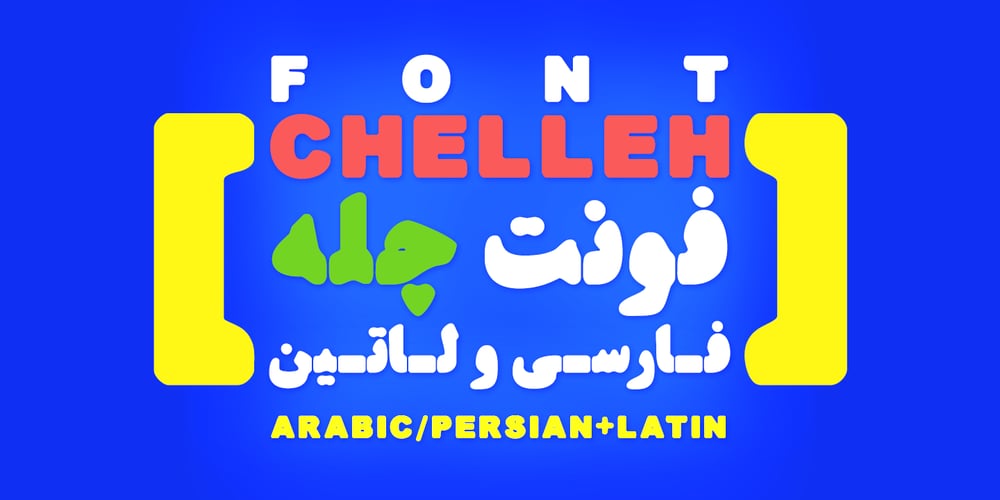
Chelleh Font Family was designed by Shahab Siavash and published by Si47ash Fonts. Chelleh contains 1 styles and family package options. Nostalgic, typographic, stencil and old-style! Chelleh is the Persian Northern Hemisphere’s winter solstice festival celebrated on the “longest and darkest night of the year, and I also an Arabic/Persian typeface too! Well, of course supporting basic Latin as well. Due to its special design, Chelleh doesn’t support Arabic diacritics. Shahab Siavash, the designer has done more than 30 fonts and got featured on Behance, Microsoft, McGill University research website, Hackernoon, Fontself, FontsInUse,… Chelleh heavy and headline font which is one of his latest designs, already got professional typographers, lay-out and book designers’ attention as well as some of the most recognizable publications in Arabic/Persian communities.